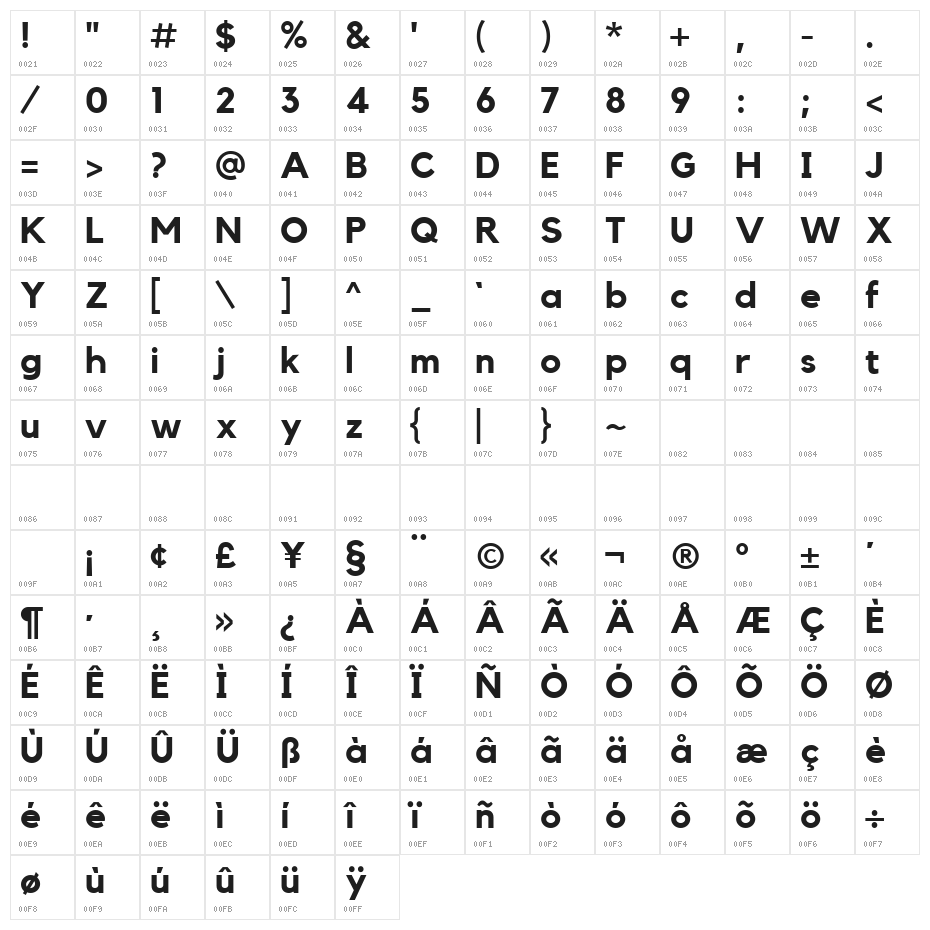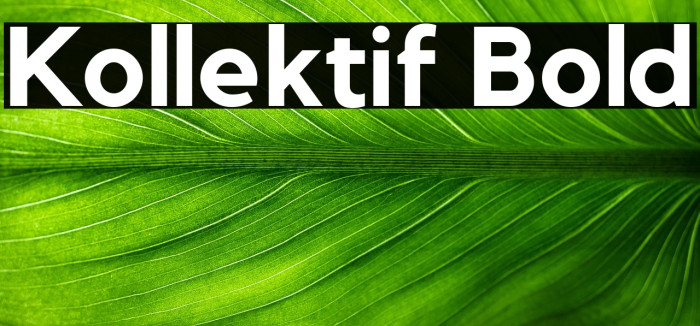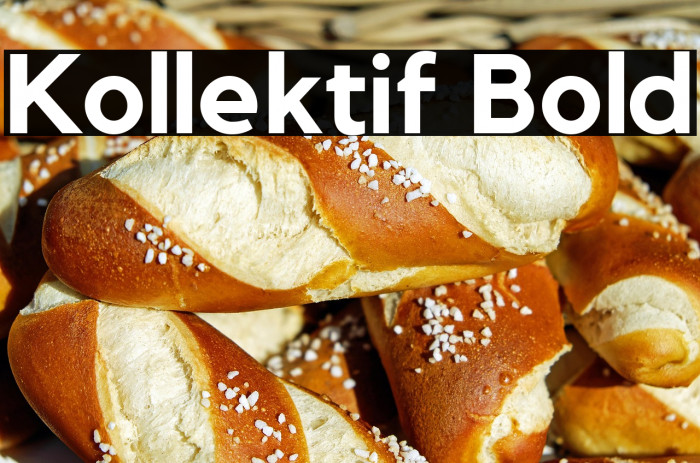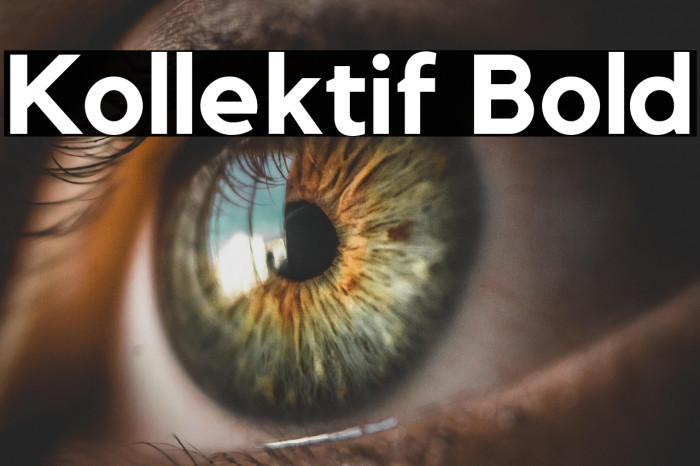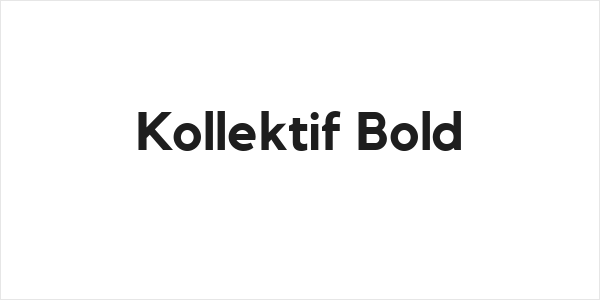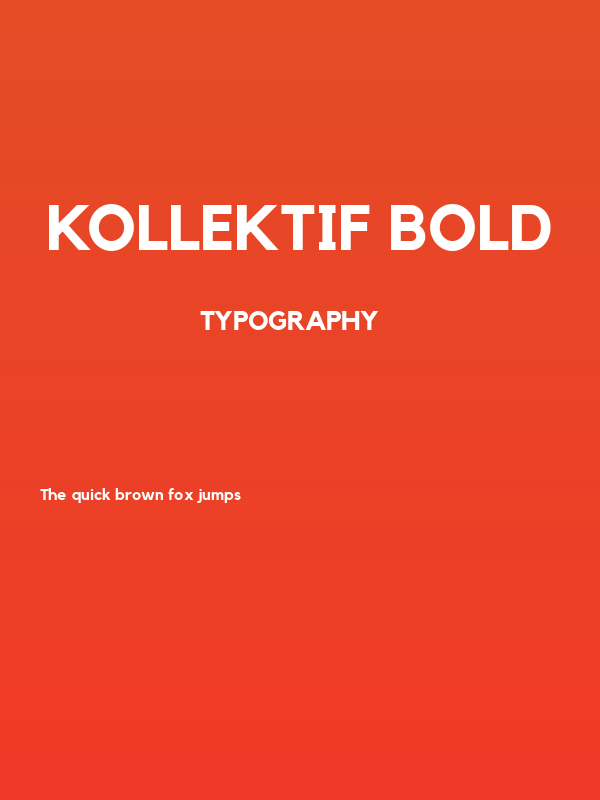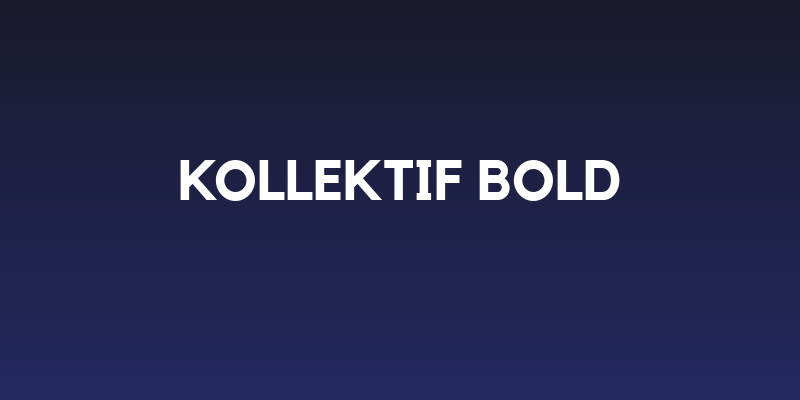
Kollektif Bold Font
Kollektif Bold Description
This typeface features a clean, geometric design with bold, uniform strokes that create a strong visual impact. The characters are well-balanced and evenly spaced, contributing to a modern and professional appearance. The uppercase letters are straightforward and assertive, while the lowercase letters maintain a consistent roundness that adds a touch of friendliness. The numerals and special characters are designed to match the overall aesthetic, ensuring cohesion across all text elements. This font is versatile, suitable for a wide range of applications from digital to print media.
| Use Case | Headlines, Logos, Digital interfaces |
| Proposed Projects | Ideal for branding, advertising, headlines, and digital interfaces where a strong, modern presence is desired. |